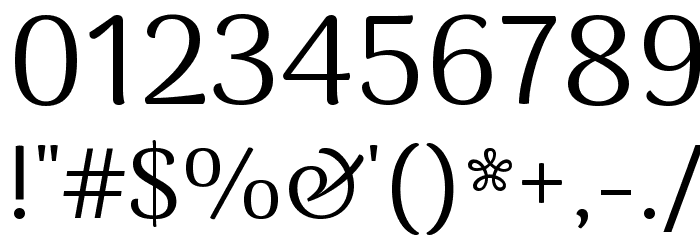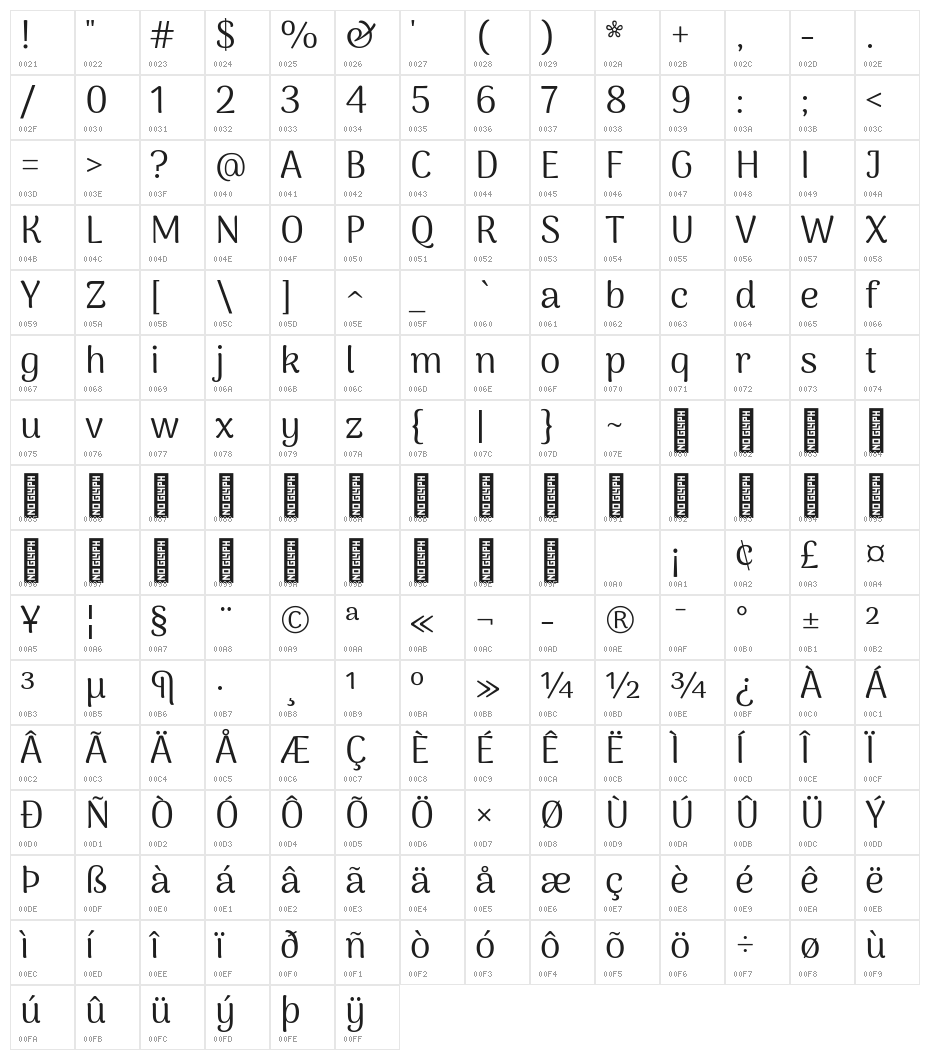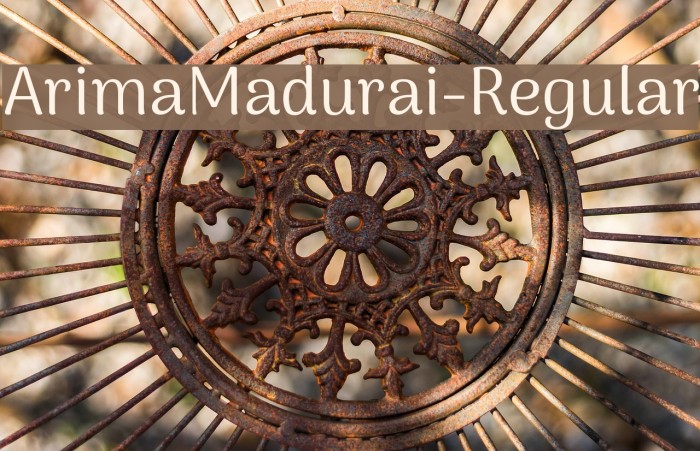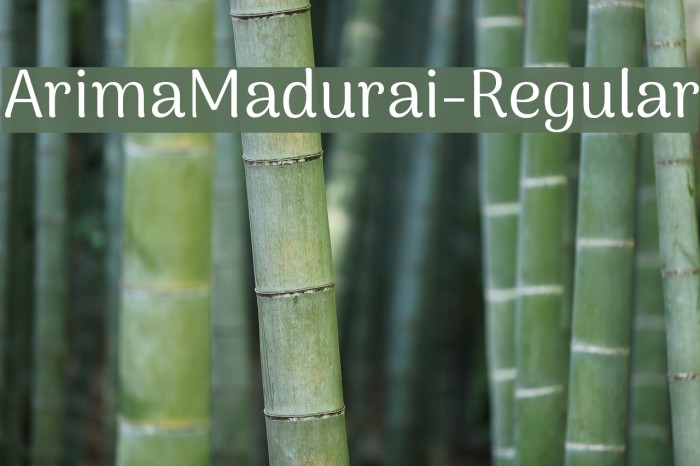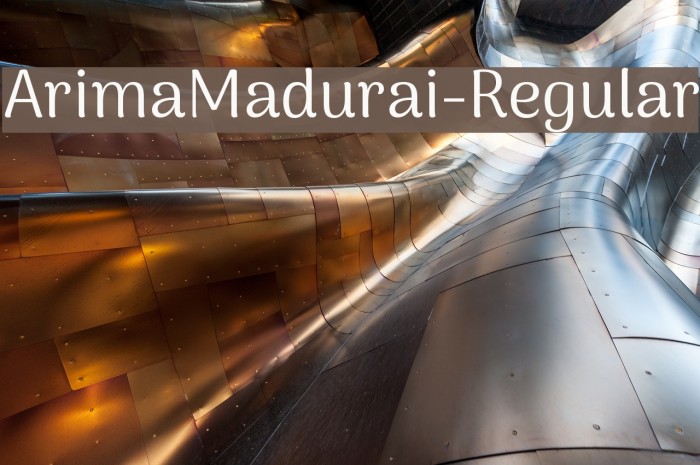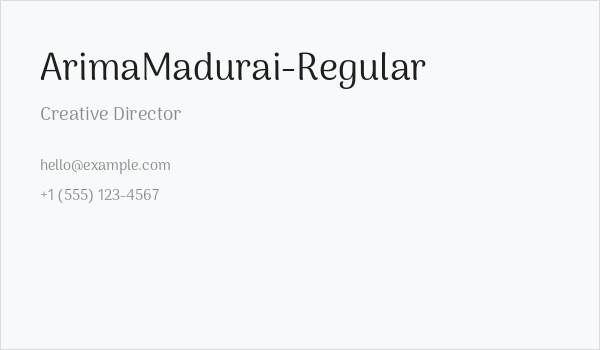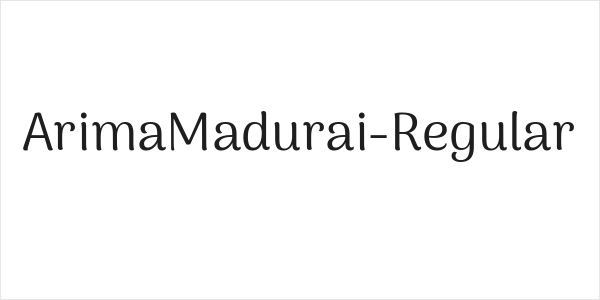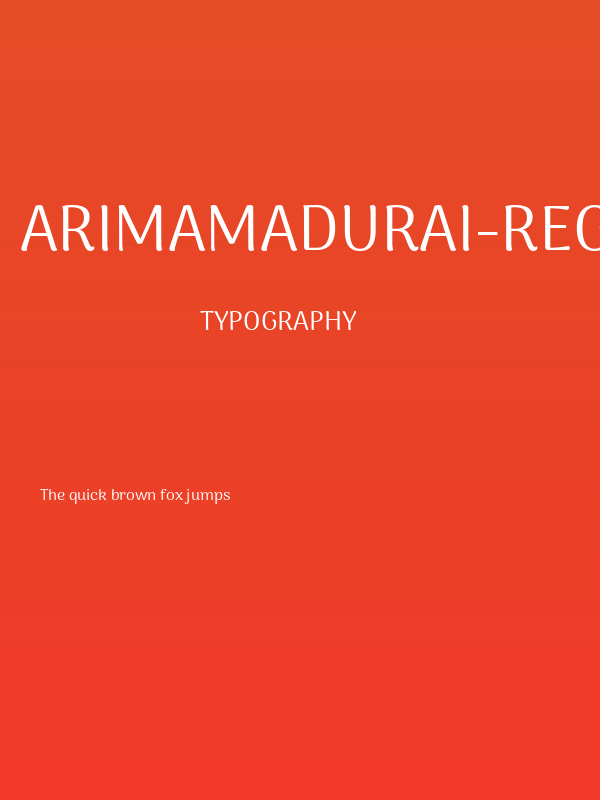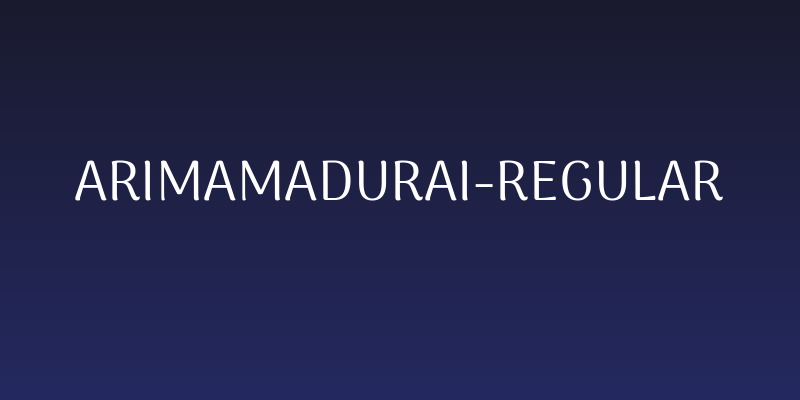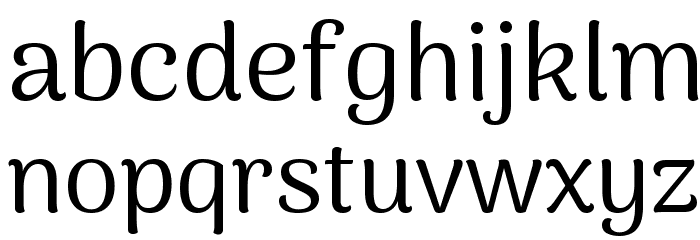
ArimaMadurai-Regular Font
ArimaMadurai-Regular Description
This font features a clean and modern design with a touch of elegance. The characters are well-balanced with a slight curvature that adds a friendly and approachable feel. The uppercase letters are bold and prominent, while the lowercase letters maintain a consistent flow, making it versatile for various design needs. The numerals are clear and easy to read, and the special characters are distinct, ensuring readability across different contexts. The overall appearance is sleek and professional, suitable for both digital and print media.
| Proposed Projects | Ideal for branding, web design, advertising, and editorial projects. |